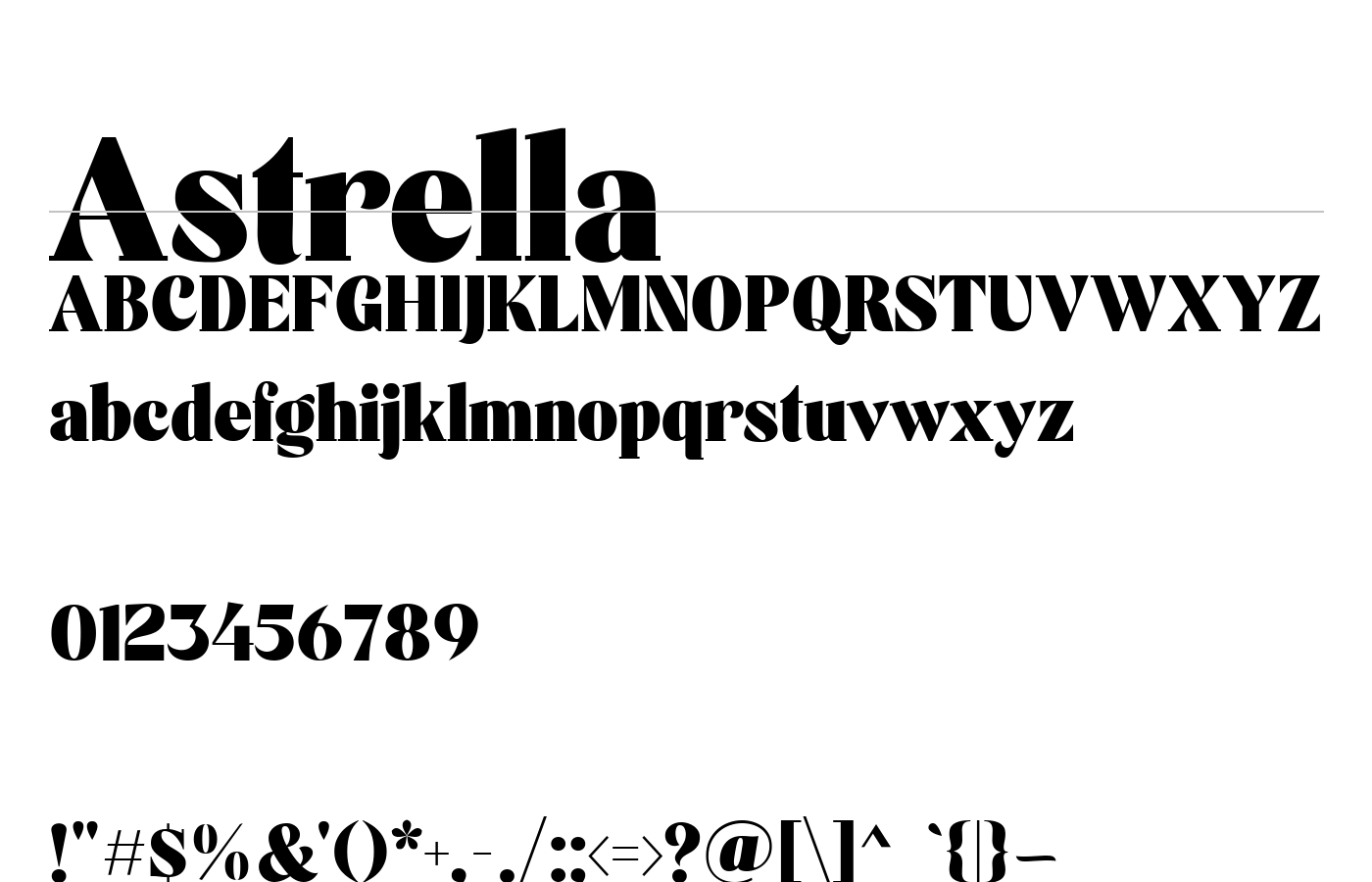
Astrella is a bold, modern serif font with high contrast between thick and thin strokes, featuring sharp, geometric serifs that give it a strong and elegant presence. Its tall x-height and tight spacing create a commanding yet refined look, ideal for upscale branding, editorial headlines, and luxury packaging where a sophisticated, confident style is desired. This font works best in large display settings where its dramatic character and stylish letterforms can truly stand out.
Astrella Font